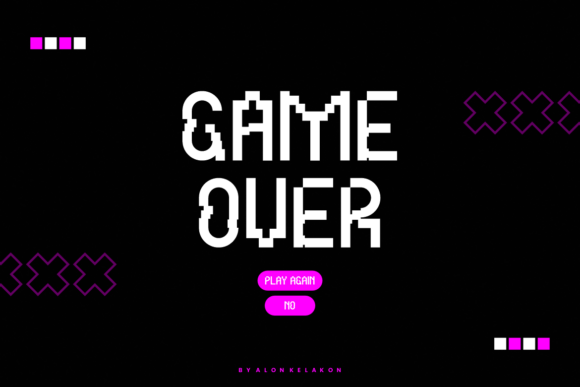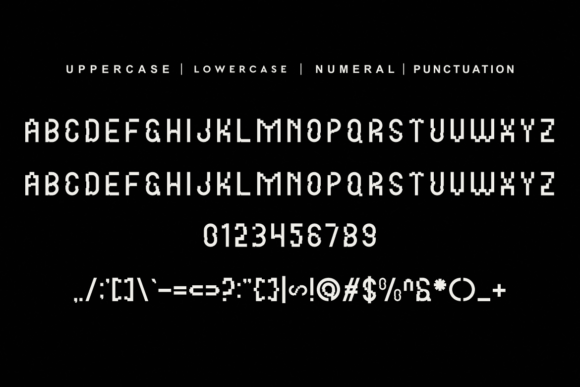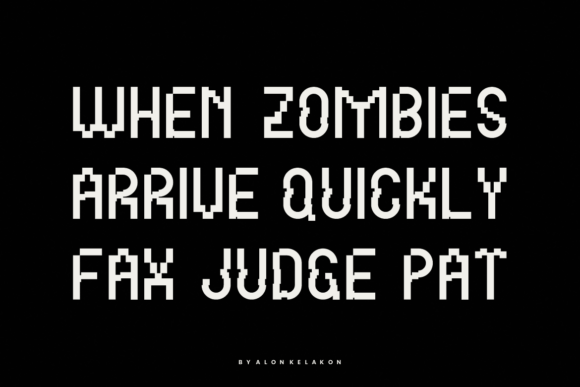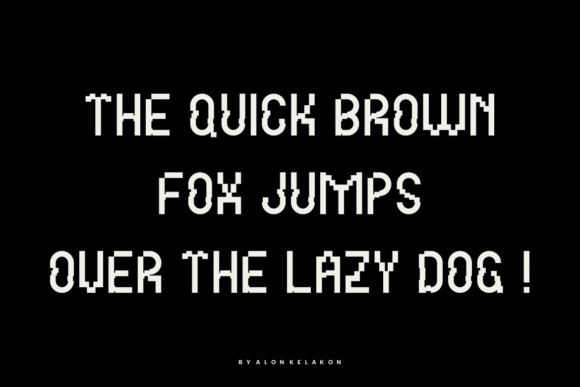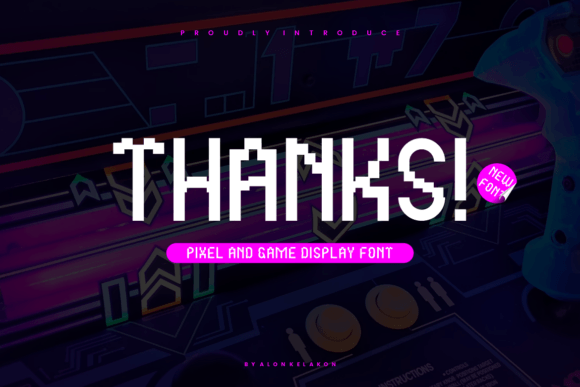
Geraqed Font: Unlocking the Magic of Modern Whimsy in Design
In the realm of typography, few fonts manage to capture the essence of modern whimsy as effectively as Geraqed. This incredibly cool and unique sans serif font has been making waves in the design community, and for good reason. With its modern yet whimsical style, Geraqed has the power to transport your designs into a magical world, setting them apart from the ordinary and catapulting them into the realm of the extraordinary.
The Allure of Geraqed
So, what makes Geraqed so special? The answer lies in its distinctive character. Unlike traditional sans serif fonts, which often lean towards the minimalist and the mundane, Geraqed injects a dose of playfulness and personality into its design. Its letters are crafted with a unique blend of straight lines and subtle curves, creating a visually appealing contrast that captures the eye and holds the attention.
Whether you’re working on a branding project, crafting a compelling advertisement, or simply looking to add some flair to your digital content, Geraqed offers a versatility that is hard to match. Its modern aesthetic ensures that your designs feel contemporary and relevant, while its whimsical undertones add a layer of depth and emotion, making your message more relatable and engaging.
Exploring the Features of Geraqed
Geraqed is more than just a pretty face; it’s a font that is designed with the needs of designers and crafters in mind. Here are some of its standout features:
• Unique Character Set: Geraqed boasts a comprehensive character set that includes a range of letters, numbers, and punctuation marks, ensuring that you have everything you need to bring your designs to life.
• High-Quality Rendering: The font is meticulously crafted to ensure high-quality rendering across various platforms and devices, guaranteeing that your designs look crisp and professional.
• Easy to Read: Despite its whimsical nature, Geraqed remains highly legible, making it suitable for both headings and body text.
• Customizable: With Geraqed, you have the flexibility to adjust the font size, color, and style to fit your design requirements, allowing for endless creativity and experimentation.
Applications of Geraqed
The possibilities with Geraqed are endless. Here are some ways you can leverage this incredible font in your designs:
• Branding: Use Geraqed to create memorable logos and brand identities that stand out from the crowd.
• Digital Content: Add a touch of whimsy to your blog posts, social media updates, and website content with Geraqed.
• Advertising: Make your advertisements more engaging and eye-catching with this unique font.
• Crafting: Whether you’re creating handmade cards, scrapbooking, or engaging in other craft projects, Geraqed can add a modern and playful touch.
Font Name Geraqed Font
Author alonkelakon
Geraqed is more than just a font; it’s a tool for unlocking creativity and bringing a touch of magic to your designs. Its unique blend of modernity and whimsy makes it an invaluable asset for designers and crafters looking to make their mark. With Geraqed, you can transform your projects, engage your audience, and create designs that are truly unforgettable. So why settle for ordinary when you can create something extraordinary with Geraqed?
Embark on a journey of creative exploration with Geraqed and discover the difference it can make in your designs. Whether you’re a seasoned professional or a hobbyist, Geraqed is sure to inspire and empower you to push the boundaries of what’s possible.